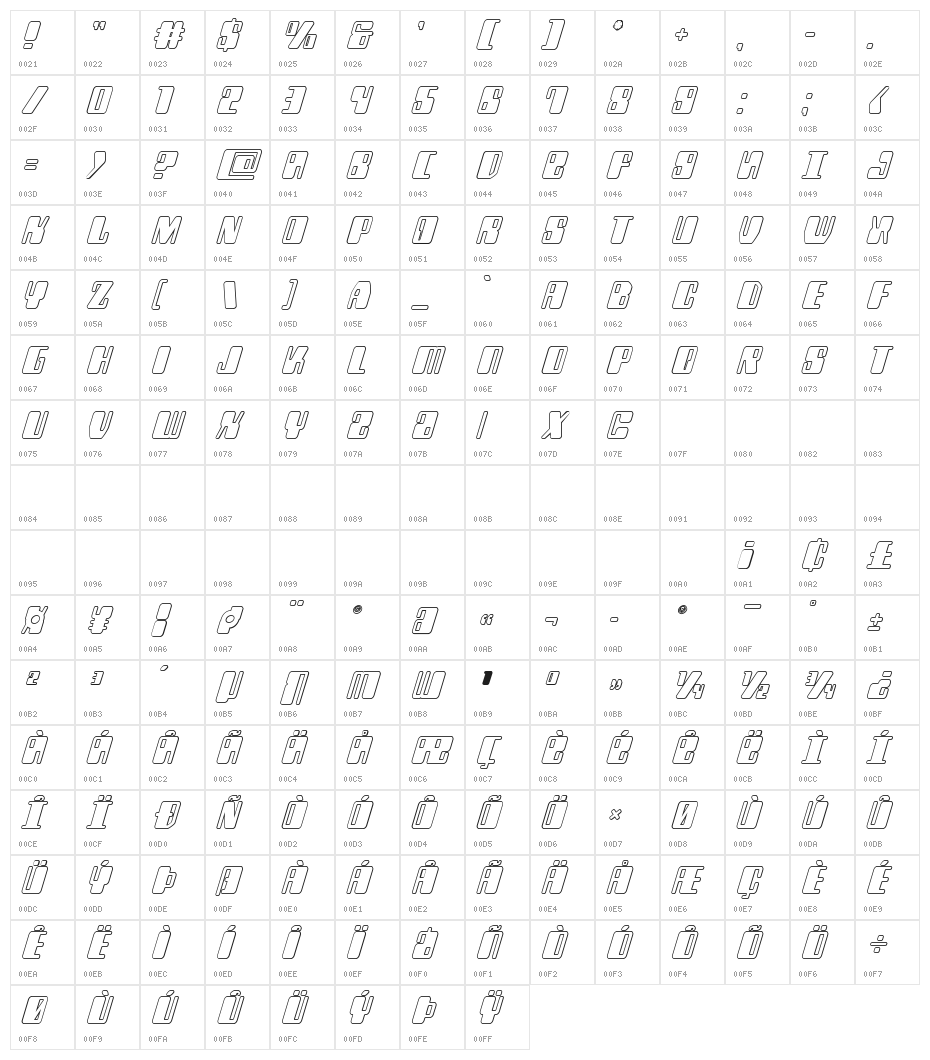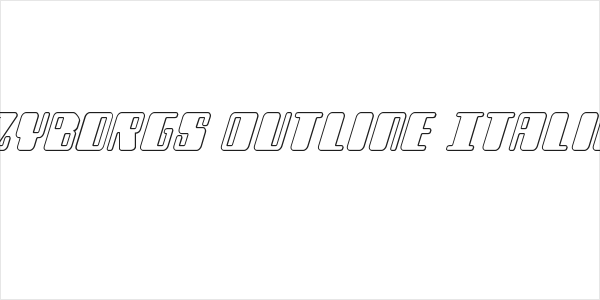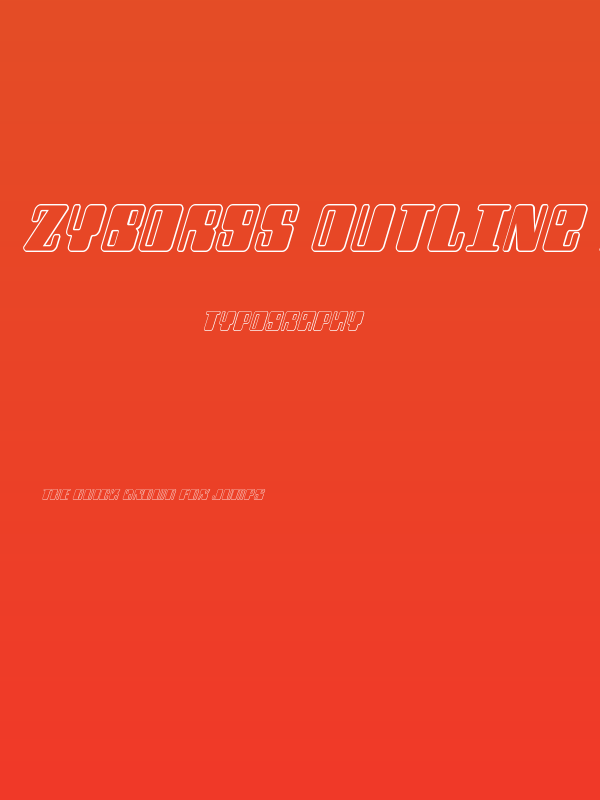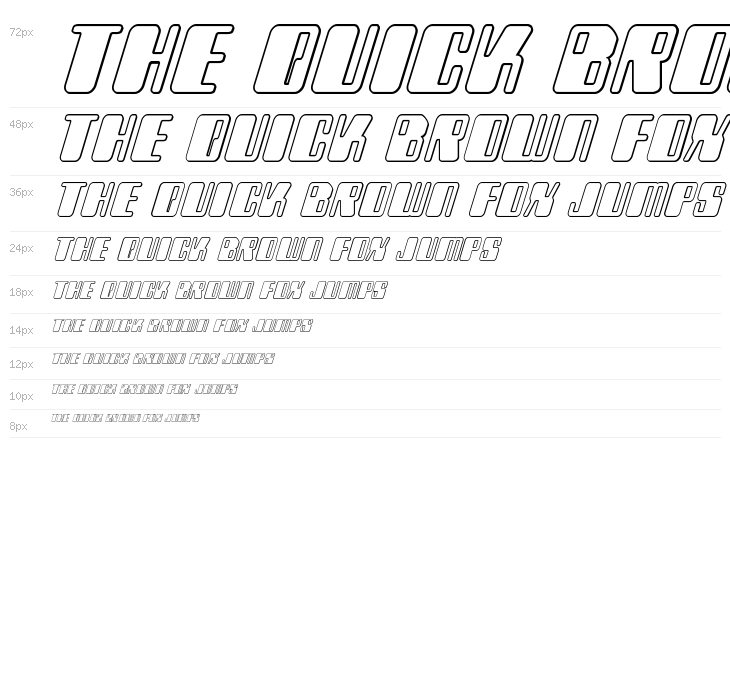
Zyborgs Outline Italic Font
Zyborgs Outline Italic Description
This font features a futuristic and geometric design with a distinct outline style. Each character is crafted with precision, showcasing a uniform thickness that gives it a sleek and modern appearance. The italic slant adds a dynamic and forward-moving feel, making it ideal for projects that require a sense of speed or innovation. The uppercase and lowercase letters maintain a consistent style, while the numbers and special characters complement the overall aesthetic. This font is perfect for creating eye-catching headlines, logos, and branding materials that need a contemporary edge.